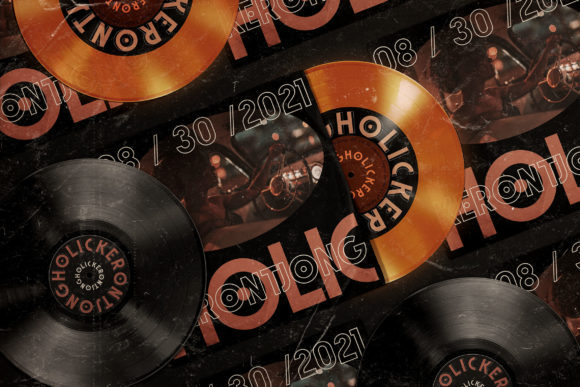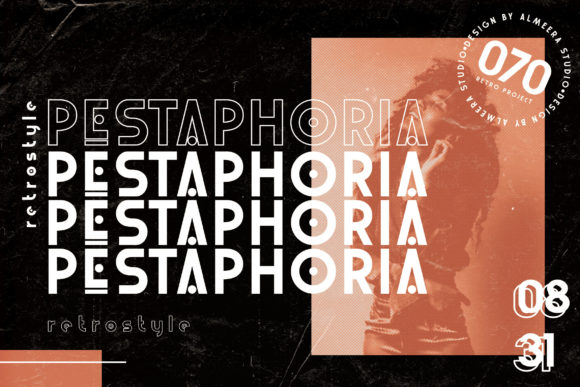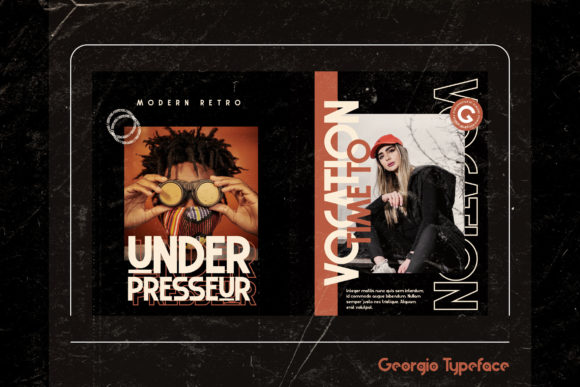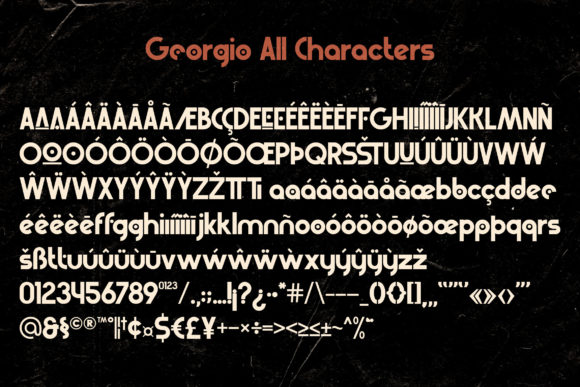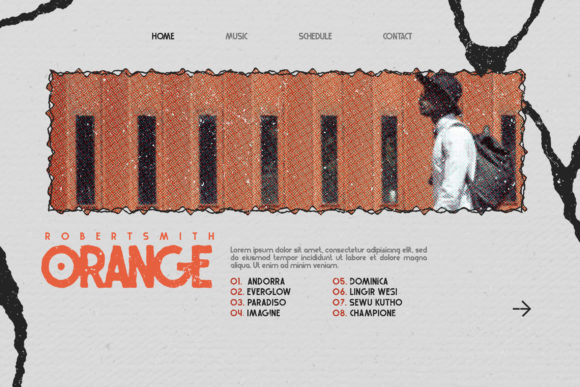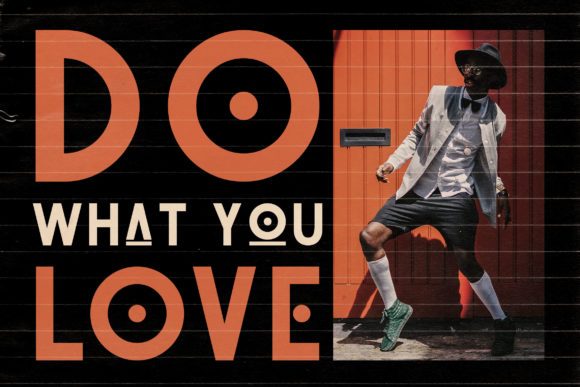
Introducing Georgio Font: The Ultimate Modern Display Font
In the world of typography, a good font can make all the difference in the success of a design project. Whether you’re a professional designer, a crafty DIY enthusiast, or a business owner looking to create a strong brand identity, having the right font at your disposal can elevate your work from ordinary to extraordinary. This is where Georgio Font comes into play – a cool, modern, and uniquely designed display font that’s perfect for adding a trendy touch to your web designs, business cards, posters, and more.
What Makes Georgio Font Stand Out?
Georgio Font is not just another font; it’s a statement piece. Its modern design and unique characteristics make it stand out in a sea of more traditional fonts. Here are a few reasons why Georgio Font should be your go-to choice for your next design project:
- Modern Aesthetic: Georgio Font boasts a sleek and contemporary look that’s sure to catch the eye. Its clean lines and stylish curves give it a fresh feel that’s perfect for brands and designers looking to convey a sense of modernity and sophistication.
- Versatility: Despite its modern edge, Georgio Font is incredibly versatile. It can be used for a wide range of applications, from digital media like website headers and social media graphics to print materials such as business cards, posters, and flyers.
- Uniqueness: In a world where many fonts can look similar, Georgio Font offers a unique twist that can help your designs stand out. Its distinctive style ensures that your work will have a memorable look that captures attention.
- Legibility: While Georgio Font is designed with aesthetics in mind, it doesn’t compromise on legibility. Its clear and readable design ensures that your message is communicated effectively, making it suitable for both headlines and body text.
How to Use Georgio Font in Your Designs
Georgio Font’s versatility means it can be used in a multitude of design projects. Here are some ideas to get you started:
- Web Design: Use Georgio Font as a headline font for your website to create an immediate impact. Its modern look can help set the tone for your brand and make your site stand out.
- Business Cards: Make a lasting impression with business cards that feature Georgio Font. Its unique style can help you stand out in a stack of more traditional cards.
- Social Media Graphics: Whether you’re creating Instagram posts, Facebook headers, or Twitter graphics, Georgio Font can add a trendy touch that captures attention.
- Posters and Flyers: For print materials, Georgio Font can serve as a headline font that draws the eye and encourages readers to engage with your content.
Tips for Pairing Georgio Font with Other Fonts
To get the most out of Georgio Font, consider pairing it with complementary fonts that enhance its modern aesthetic. Here are some tips:
- Contrast with Serif Fonts: Pairing Georgio Font with a serif font can create a nice contrast that adds depth to your design. The sleek lines of Georgio Font work well with the classic look of serif fonts.
- Match with Monolines: For a more modern and cohesive look, consider pairing Georgio Font with another sans-serif or a monoline font. This combination keeps your design clean and contemporary.
- Experiment with Script Fonts: For a bit of flair, pairing Georgio Font with a script font can add elegance and personality to your design. This combination works particularly well for highlighting key information or adding a decorative touch.
Georgio Font is more than just a font – it’s a design statement. Its modern aesthetic, versatility, and unique style make it an excellent choice for designers and crafters looking to add a trendy touch to their projects. Whether you’re working on a web design, a business card, or a poster, Georgio Font can help elevate your work and make it stand out. So, why settle for ordinary when you can make a statement with Georgio Font?